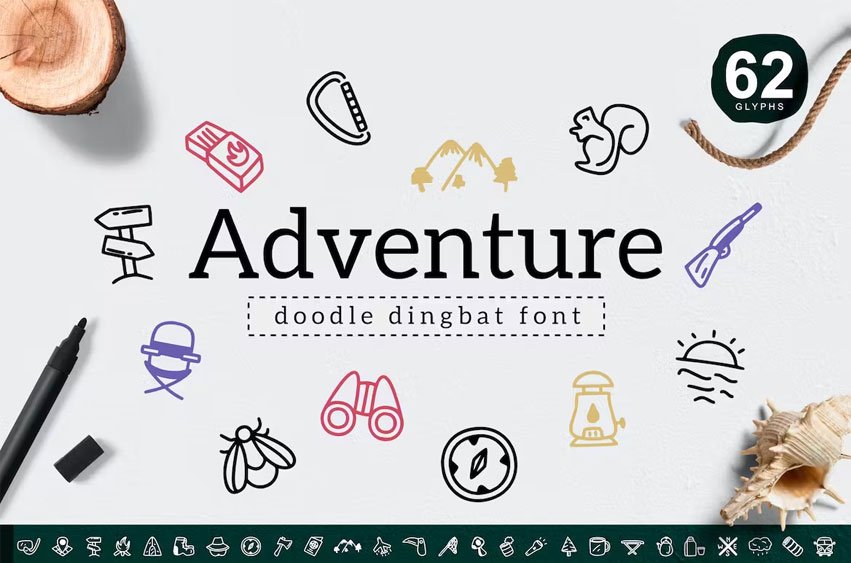
Adventure Dingbat Font
Adventure Dingbat Font Simple Adventure doodle dingbat, suitable for many project, logo, ornament etc. Contain 62 symbols as the preview below.
Adventure Dingbat Font Preview